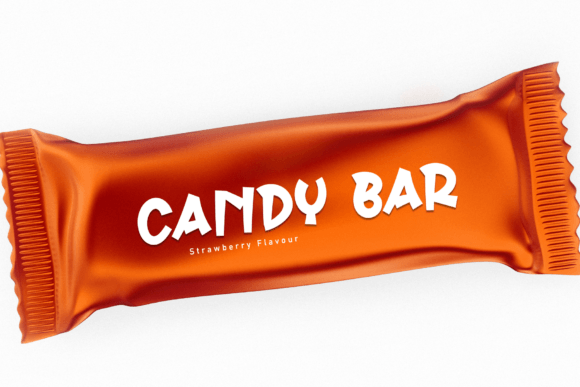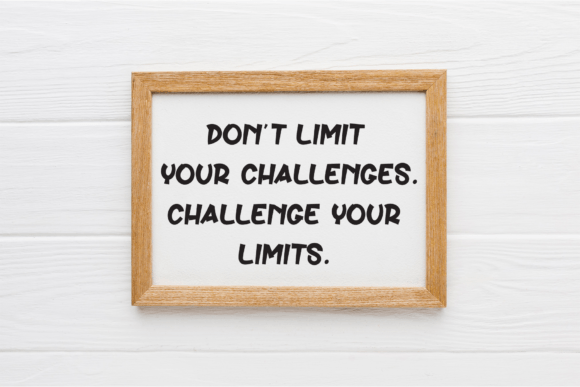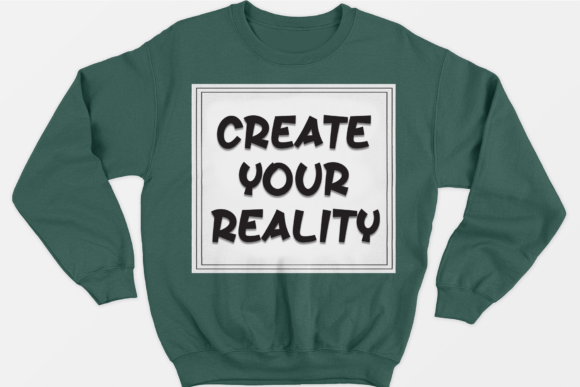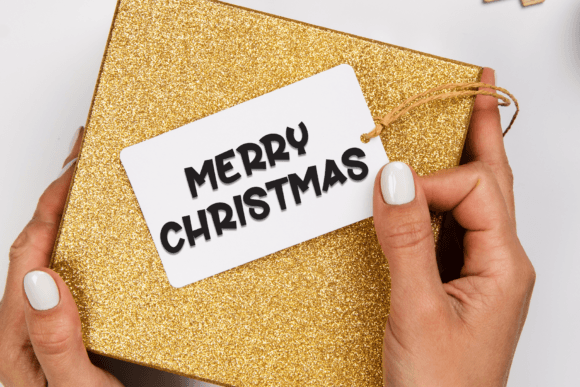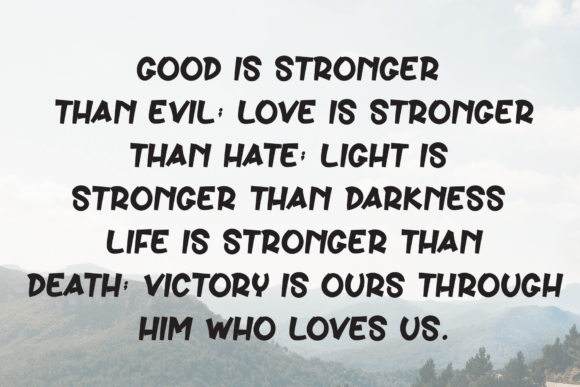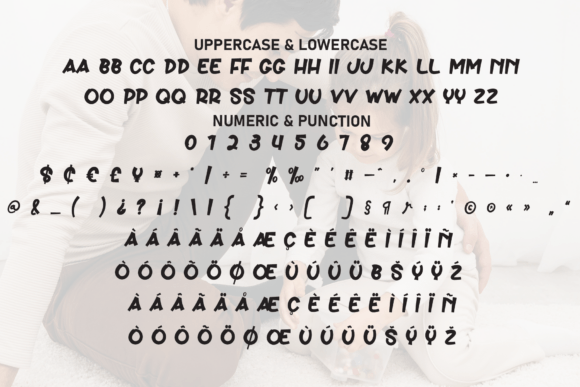
Introducing Daddy Happy Font: The Ultimate Mood-Booster for Your Designs
I’ll never forget the time I was working on a wedding invitation project, and my client asked me to create something that would make their guests feel like they’re about to attend the most fun wedding ever. I scoured the internet for the perfect font, but nothing seemed quite right – until I stumbled upon Daddy Happy Font. This adorable handwritten display font has been a game-changer for my designs, and I’m excited to share its charm with you! 😊
I’ve had the pleasure of working with Daddy Happy Font for a while now, and here’s my honest review:
- ✨ The font’s playful demeanor is infectious and instantly adds a fun touch to any design.
- ✅ Its warm-hearted style makes it perfect for wedding invitations, greeting cards, and other projects that require a personal touch.
- 💕 The font’s charming personality shines through in its unique letterforms and subtle imperfections.
As for quirks, I’ve noticed:
- 🤔 Daddy Happy Font can be a bit overused – make sure to balance it with other design elements to avoid overwhelming your audience.
- ⚠️ Some characters, like the lowercase ‘g’ and ‘y’, can appear a bit similar – use them thoughtfully to maintain legibility.
- Experiment with OpenType features, such as ligatures and stylistic alternates, to add visual interest to your design.
The Story Behind Daddy Happy Font
Daddy Happy Font was designed with one goal in mind: to spread joy and happiness through typography. Its creator, a talented type designer, wanted to craft a font that would make people smile and feel good. With its playful demeanor and charming personality, Daddy Happy Font is sure to bring a touch of warmth and personality to any design.
| Q: What type of projects is Daddy Happy Font best suited for? | A: Daddy Happy Font is perfect for wedding invitations, greeting cards, and any design that requires a personal touch. |
| Q: Is Daddy Happy Font available in different weights or styles? | A: Currently, Daddy Happy Font is available in a single weight, but its versatility and charm make it perfect for a wide range of design applications. |